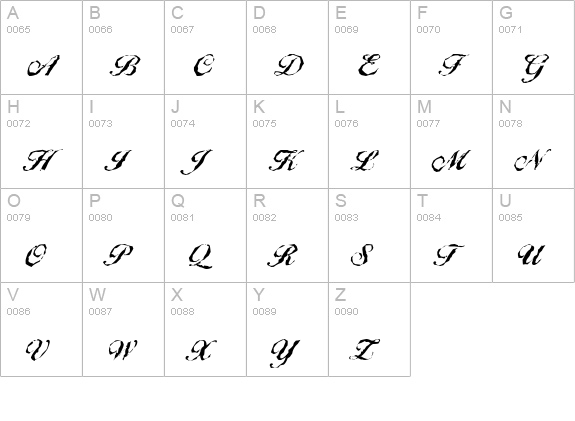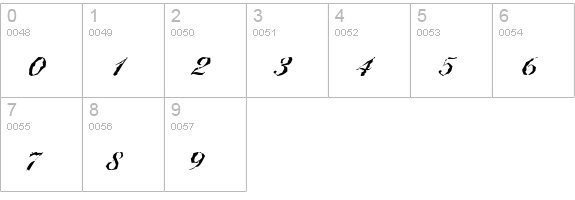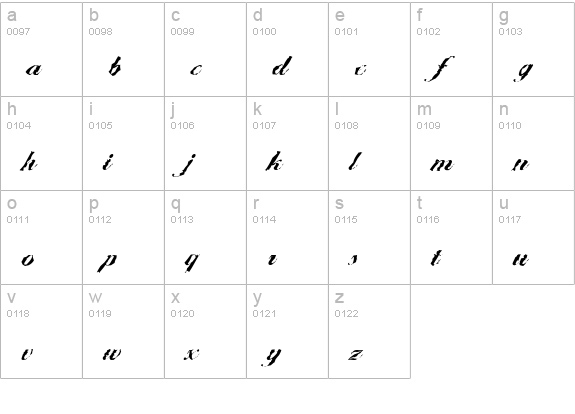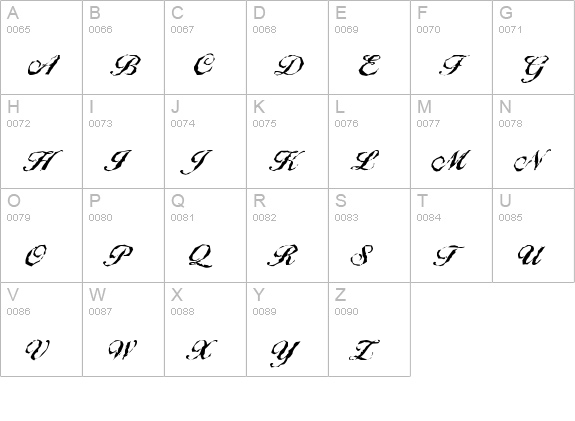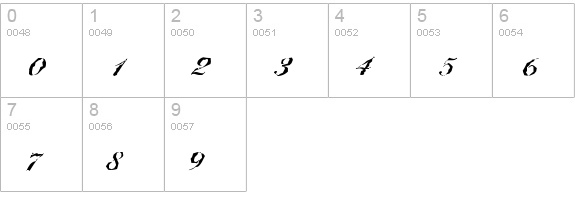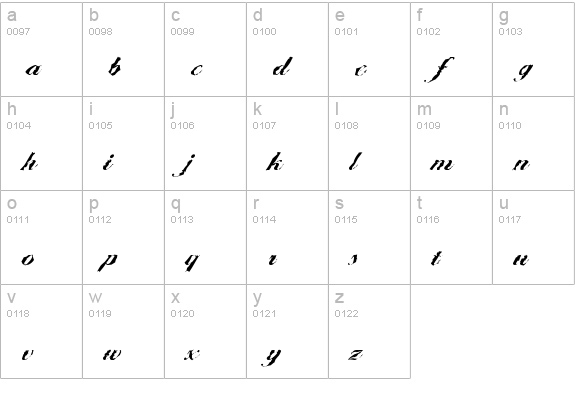
BallantinesRandom-Bold is a strong, high-contrast variant in the BallantinesRandom typeface family \xE2\x80\x94 well suited to headlines, attention-grabbing titles, and strong calls-to-action.
BallantinesRandom-Bold font is a stylish and modern typeface that exudes confidence and boldness. Its unique design features strong, thick lines that make a statement on any project. This font is perfect for headlines, titles, and branding materials that require a touch of sophistication and flair. The BallantinesRandom-Bold font is not only visually striking, but it also offers excellent readability, making it a versatile choice for a wide range of design projects. Whether you're creating a poster, logo, or website, this font will help your text stand out and grab attention. And the best part? BallantinesRandom-Bold font is available for free download at FontsMarket.com. So you can add this eye-catching font to your design arsenal without breaking the bank. Don't miss out on the opportunity to enhance your projects with the striking and bold BallantinesRandom-Bold font.